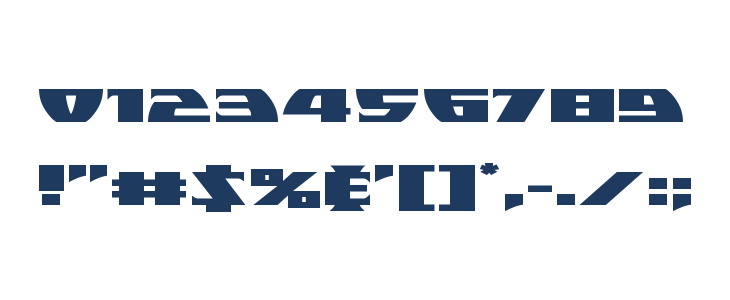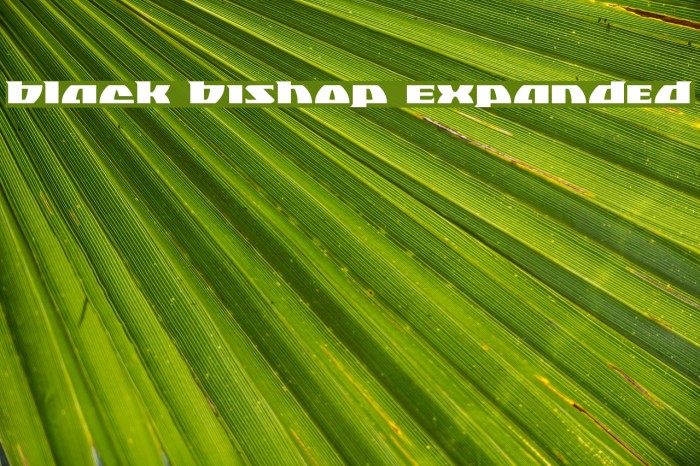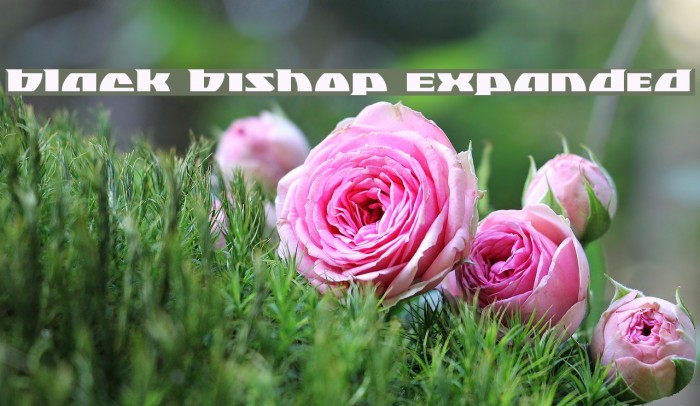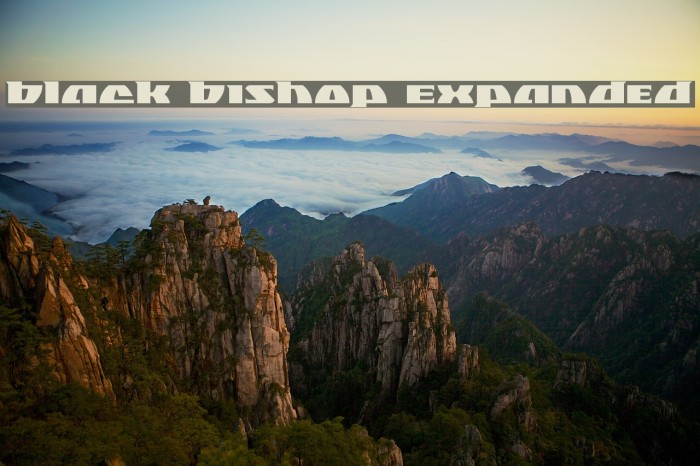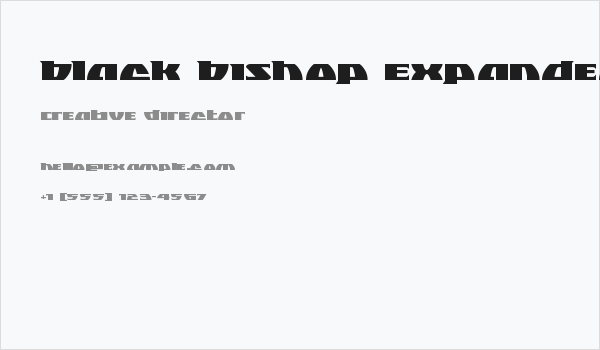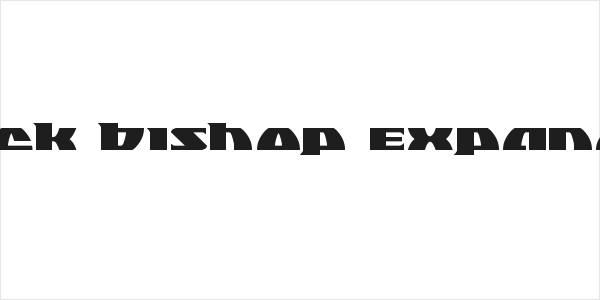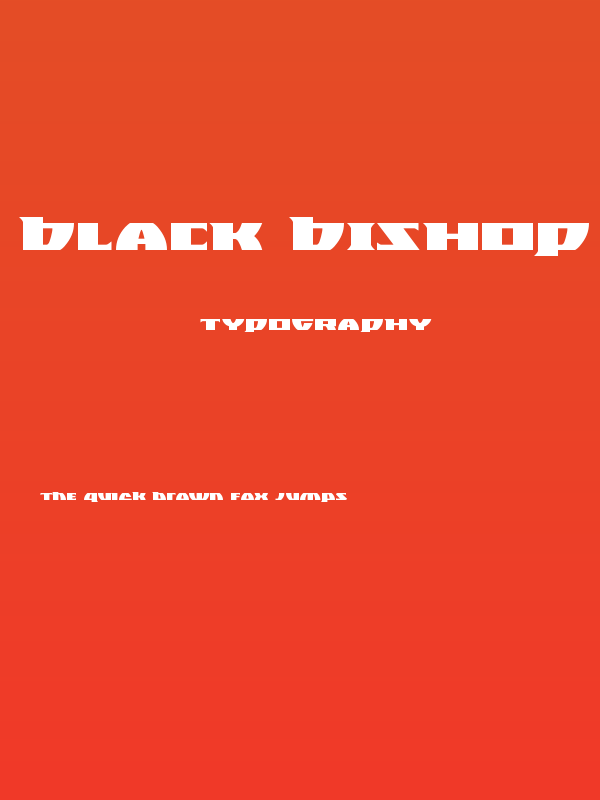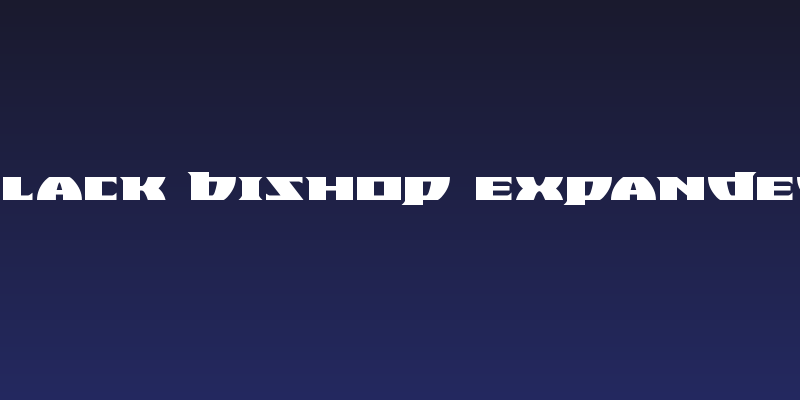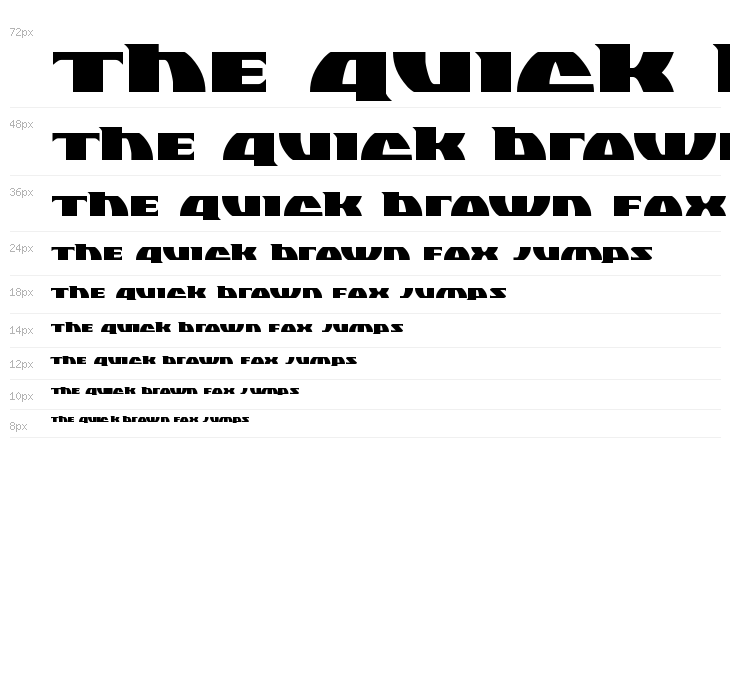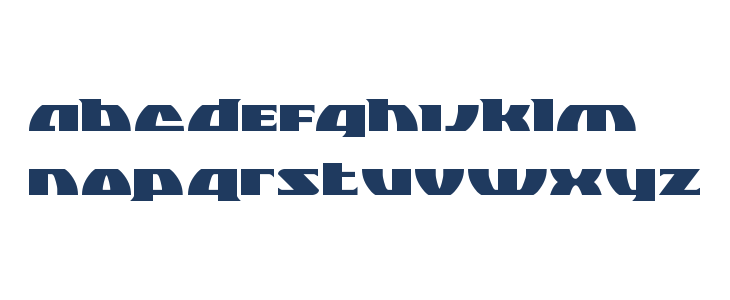
Black Bishop Expanded Font
Black Bishop Expanded Description
This font features a bold and striking design with a distinctly modern and geometric aesthetic. The characters are constructed with thick, block-like shapes that convey a sense of strength and stability. The uppercase and lowercase letters maintain a consistent style, with angular cuts and sharp edges that add a dynamic and futuristic feel. The numbers and special characters follow the same bold and structured design, ensuring uniformity across all elements. This font is ideal for making a strong visual impact, suitable for headlines, posters, and branding projects that require a bold statement.
| Proposed Projects | Ideal for headlines, posters, branding, and any project needing a strong visual impact. |